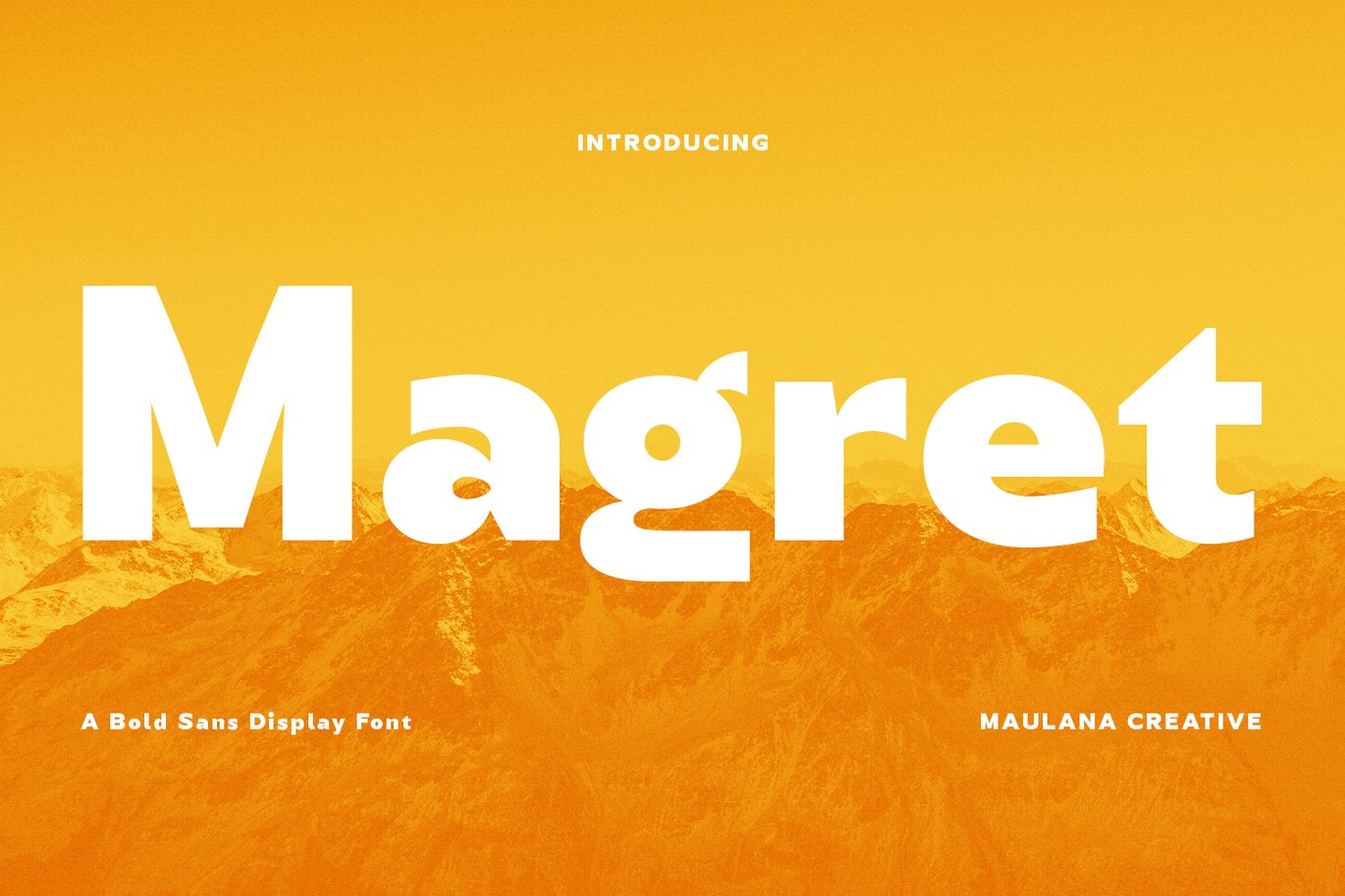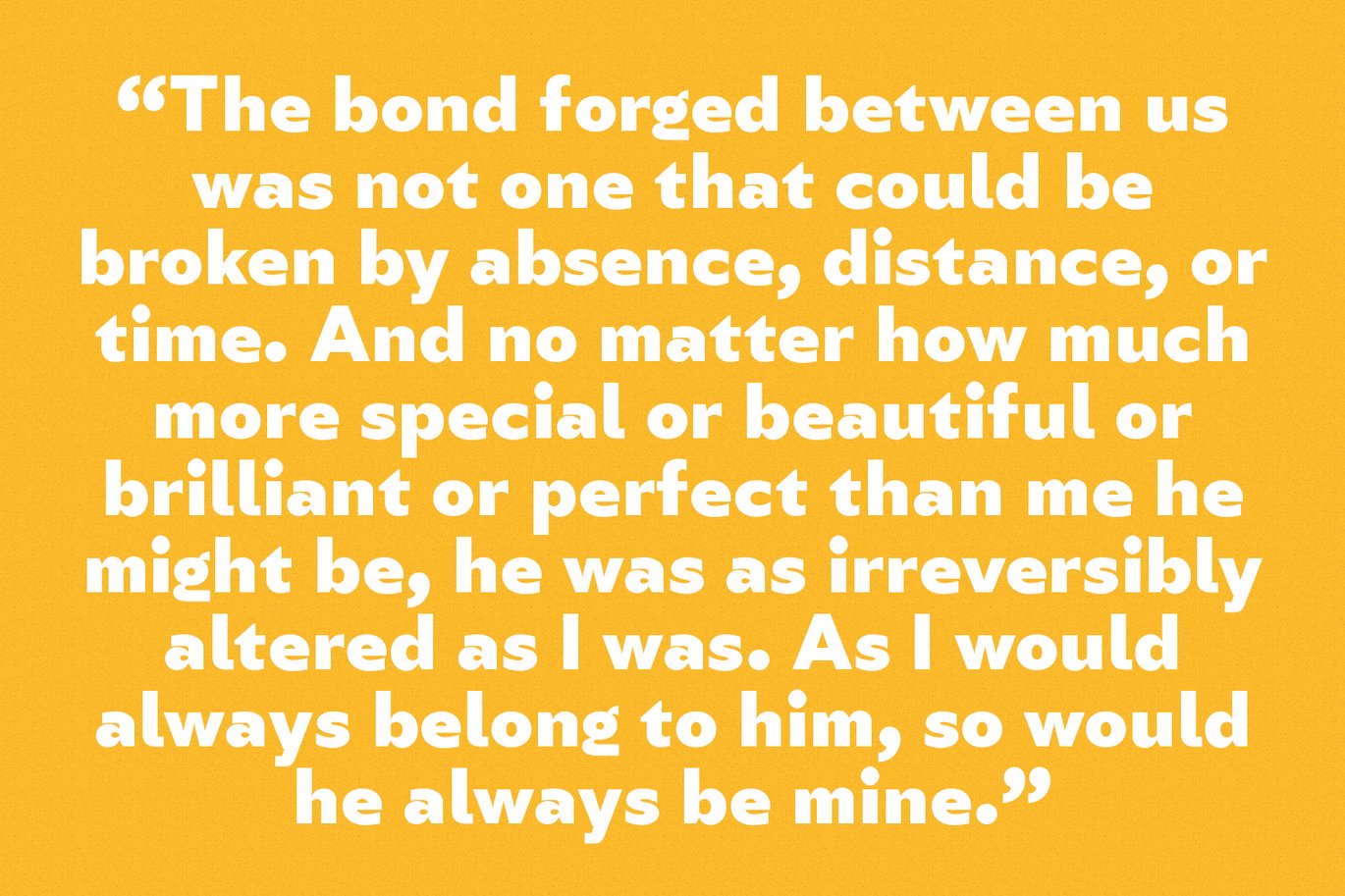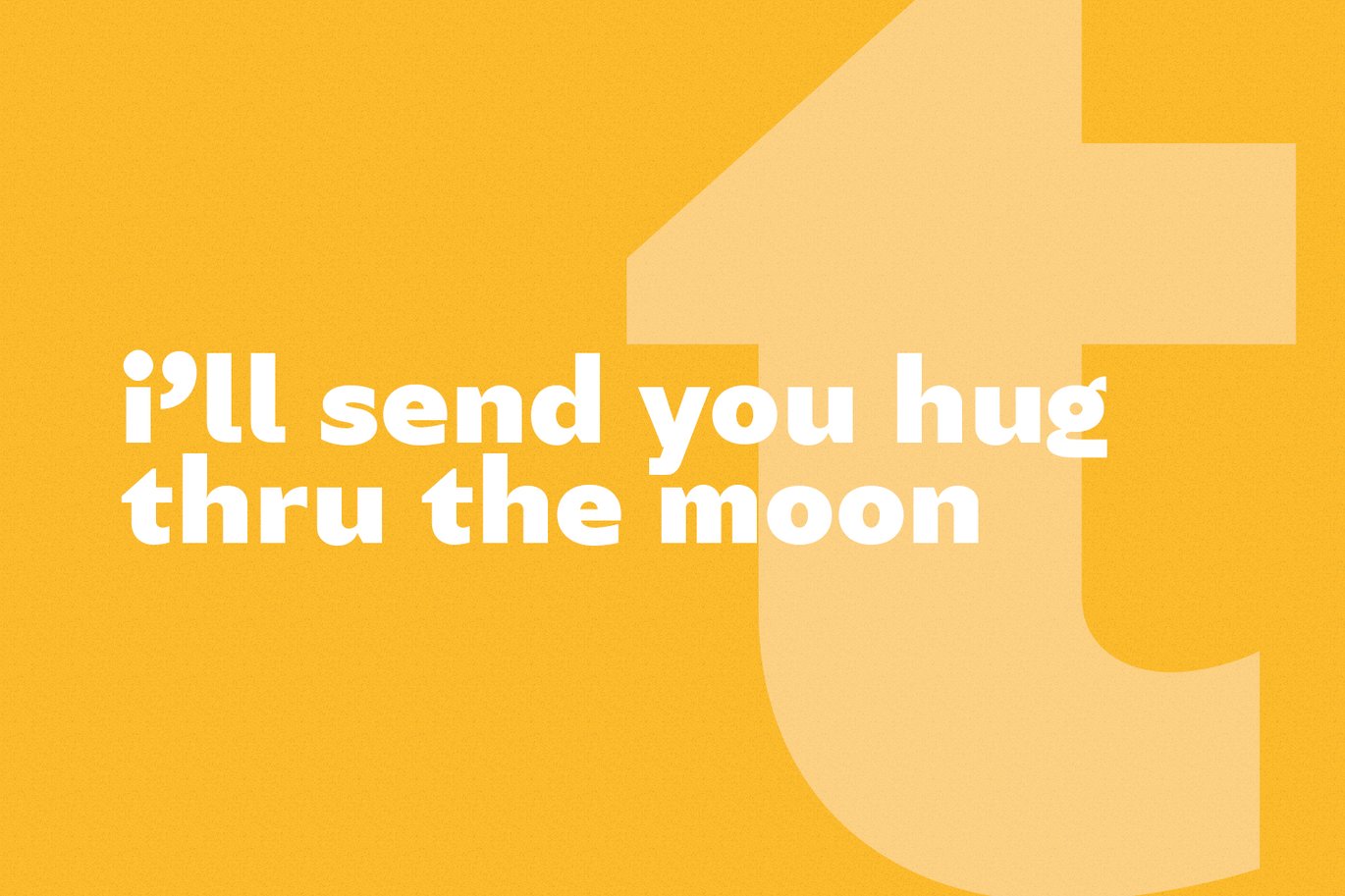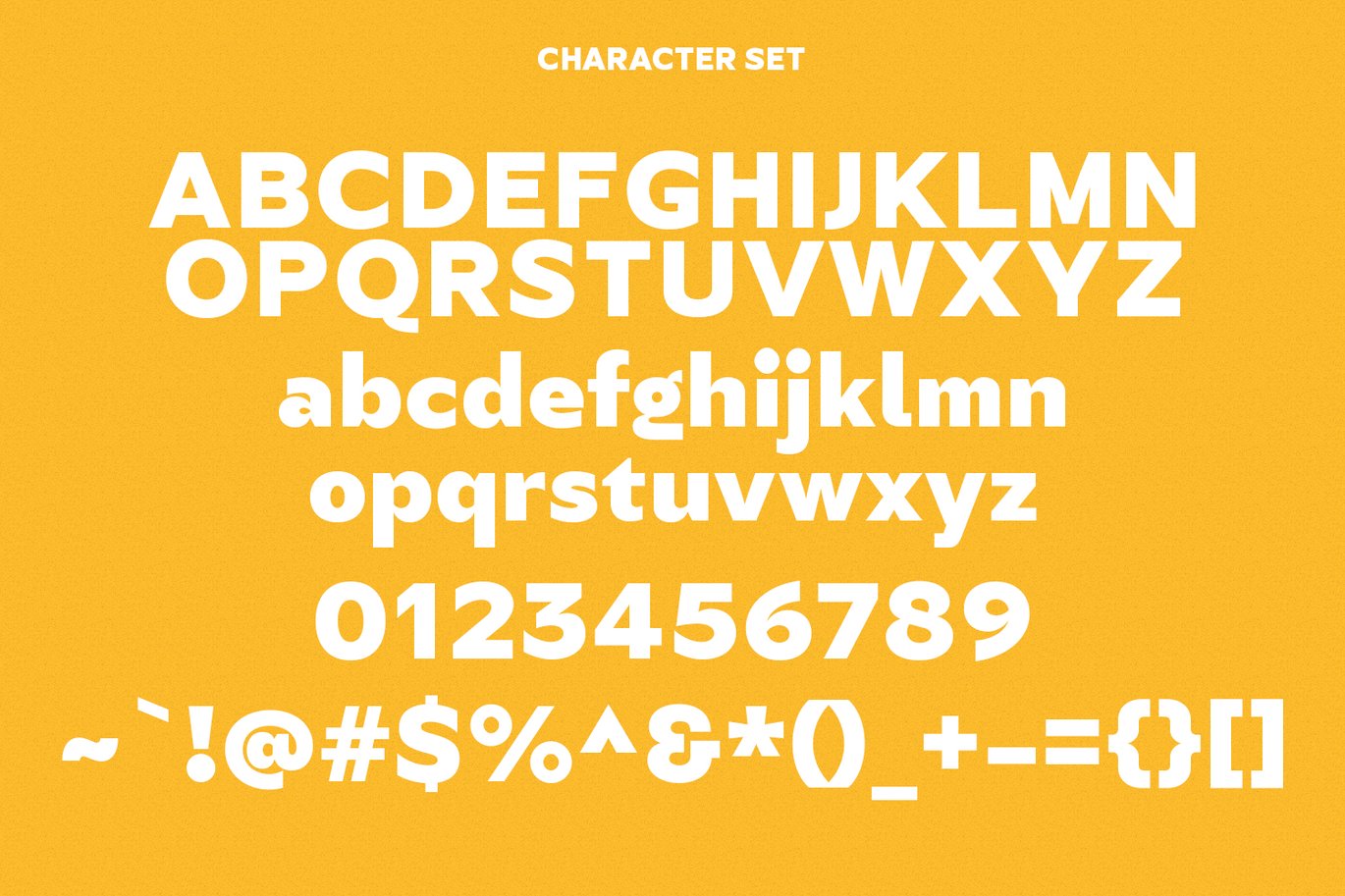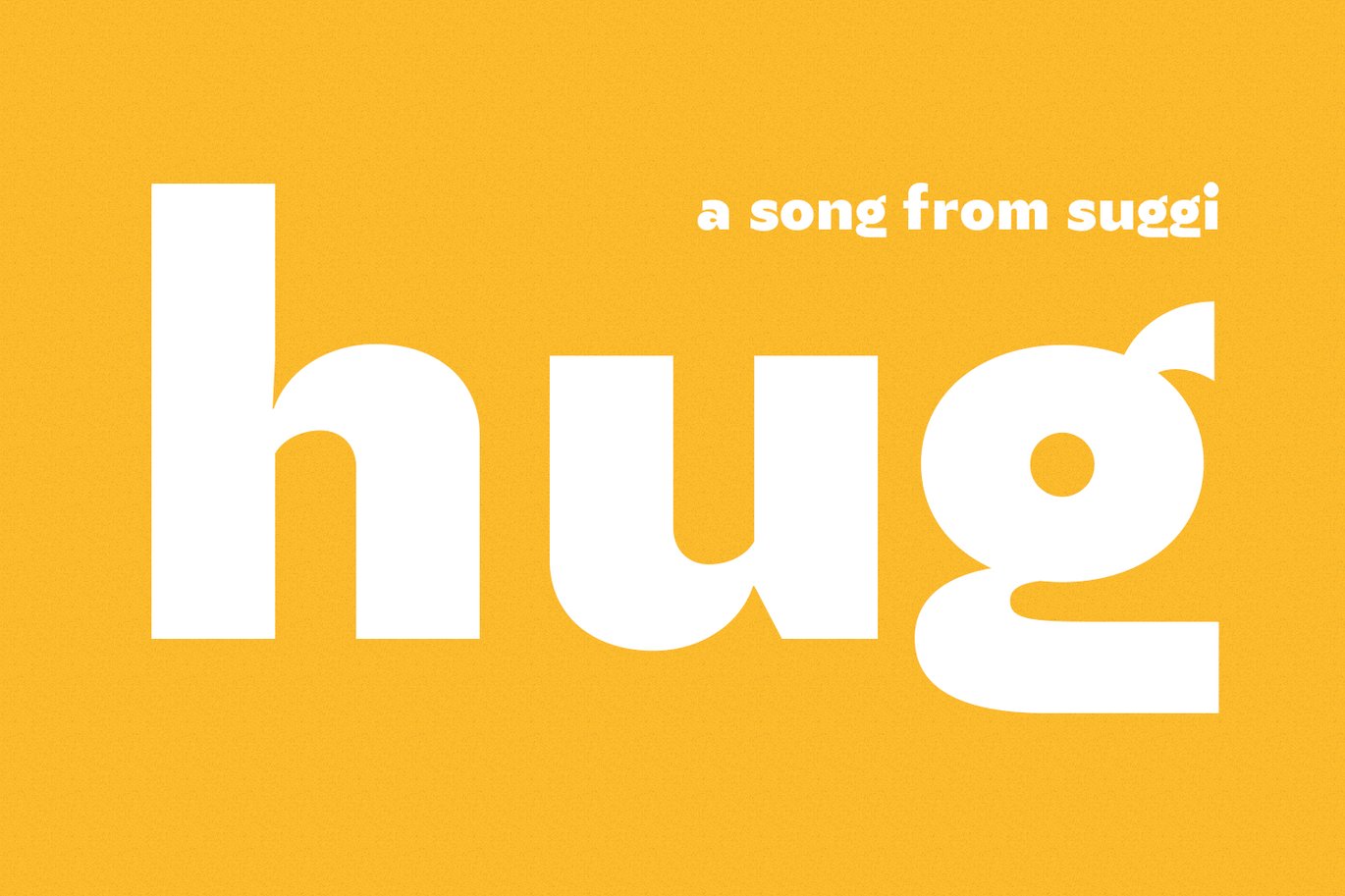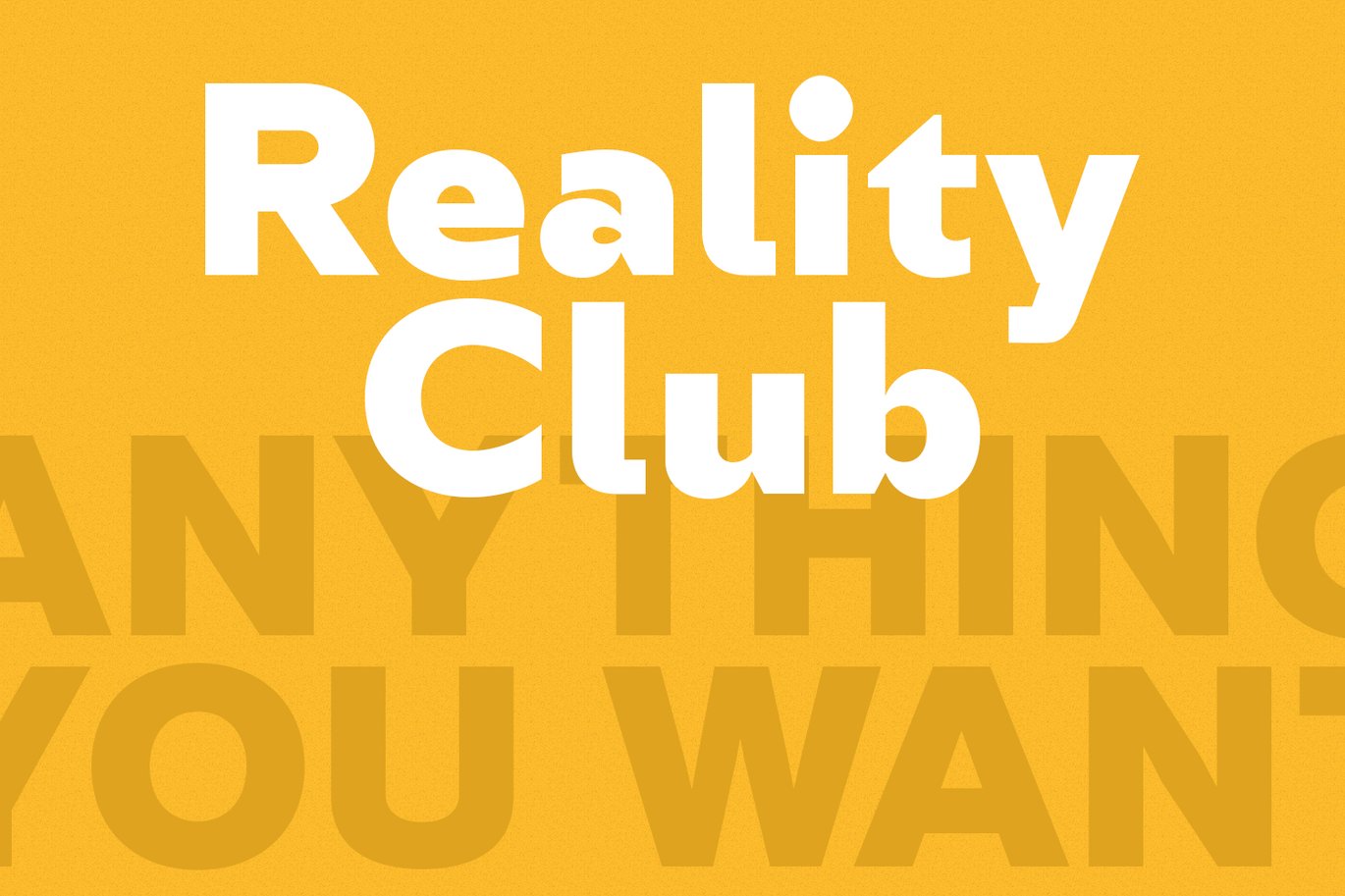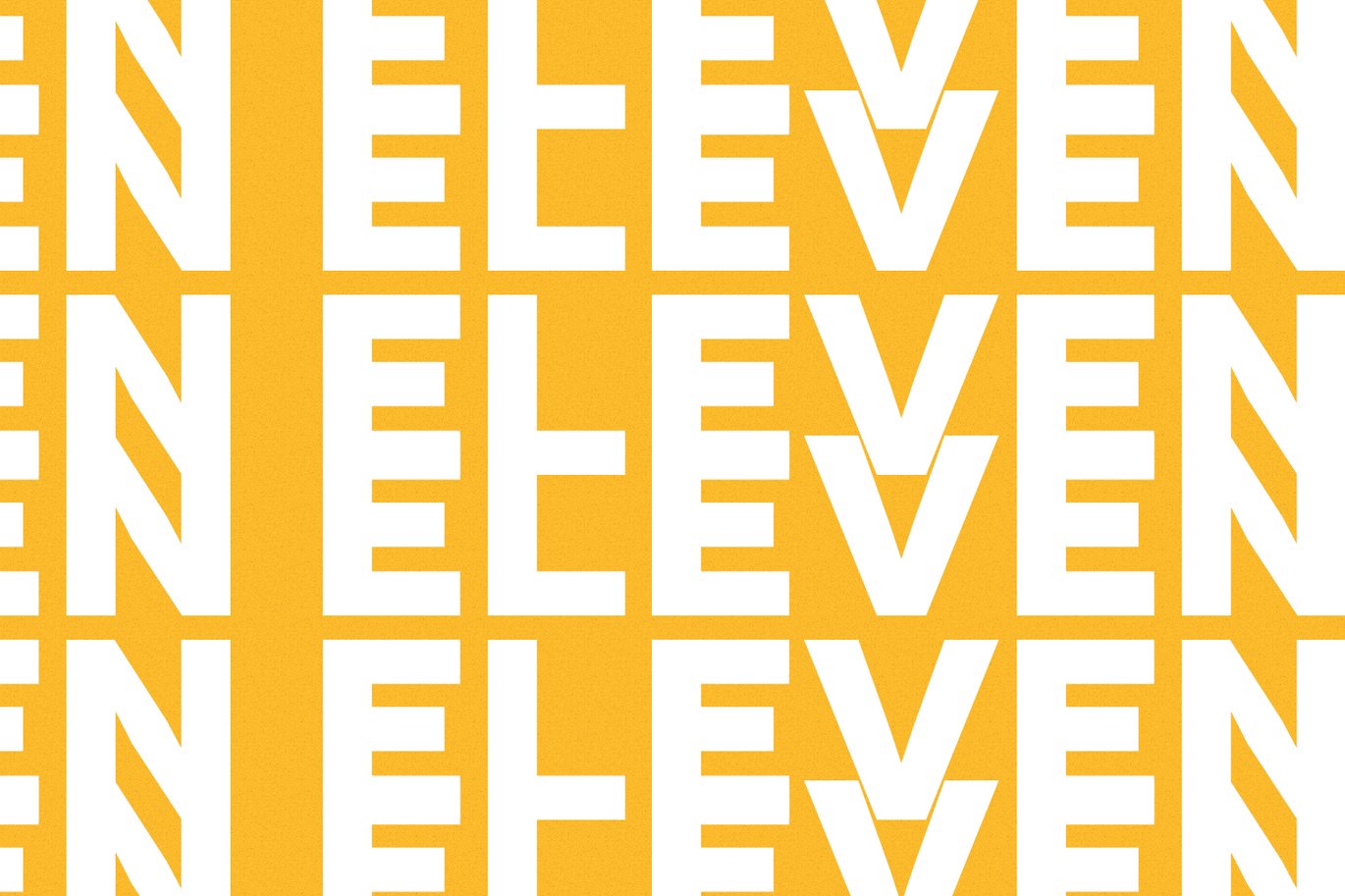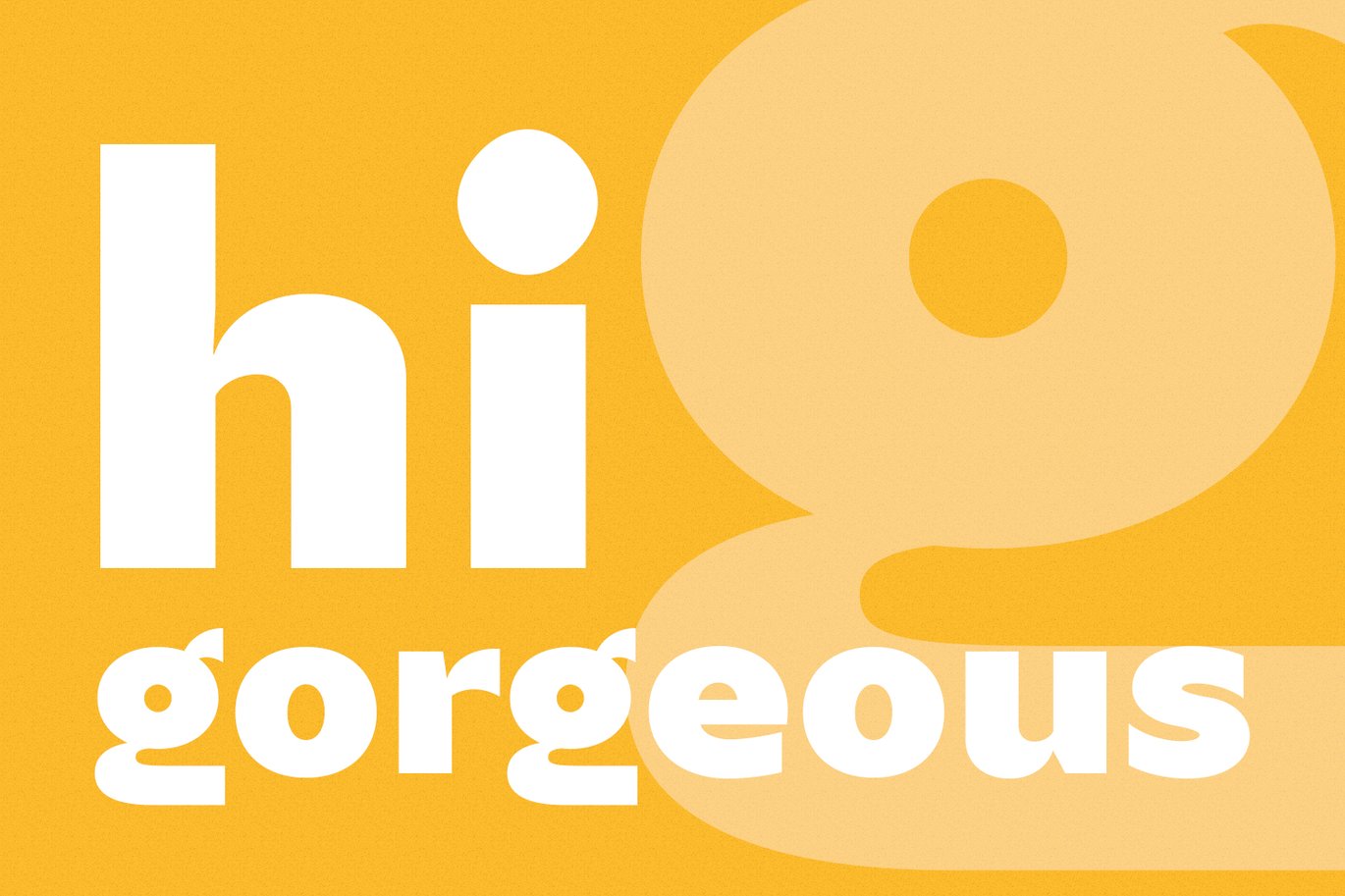
Magret Display Font
Magret is a unique eye-catchy sans serif font. With bold stroke, fun character with a bit of ligatures. To give you an extra creative work. Magret font support multilingual more than 100+ language. This font is good for logo design, Social media, Movie Titles, Books Titles, a short text even a long text letter and good for your secondary text font with sans or serif. Make a stunning work with Magret font.